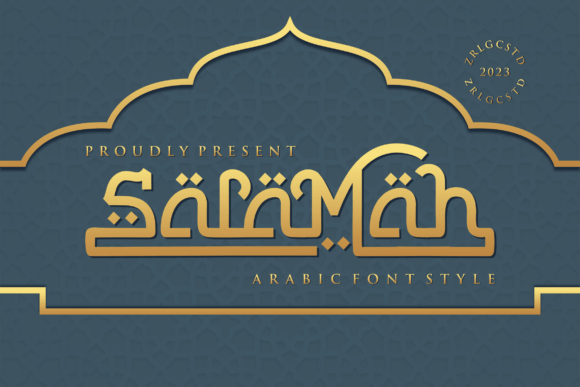
Journey into the world of captivating typography with Salamah Font, the ultimate display font for graphic designers seeking to leave an indelible mark on their creative endeavors. Salamah's modern and luxurious Arabic style is meticulously crafted with an original touch, catering to your discerning design needs.
Immerse yourself in the striking contrast of strong, sharp lines and elegant curves that define Salamah's character. Its commanding presence is ideal for headlines, posters, and magazine covers, demanding attention and leaving a lasting impression. Unleash your creativity and watch your designs soar to new heights with Salamah's versatility.
From the delicate strokes of Salamah's lowercase characters to the bold, confident lines of its uppercase, every letter is a testament to the font's exquisite craftsmanship. Experience the harmonious blend of tradition and modernity as Salamah effortlessly elevates your designs, adding a touch of sophistication and timeless elegance.
With Salamah, you'll find endless possibilities to showcase your creative genius. Create eye-catching brochures, captivating website layouts, and packaging designs that exude luxury and sophistication. Whether you're a seasoned designer or just starting your journey, Salamah is the perfect companion, guiding you towards design excellence.
Don't settle for ordinary fonts that blend into the background. Choose Salamah and embrace the power of typography. Let your designs speak volumes, conveying messages of elegance, confidence, and timeless beauty. Salamah is more than just a font; it's an artistic expression that will transform your creative visions into masterpieces.